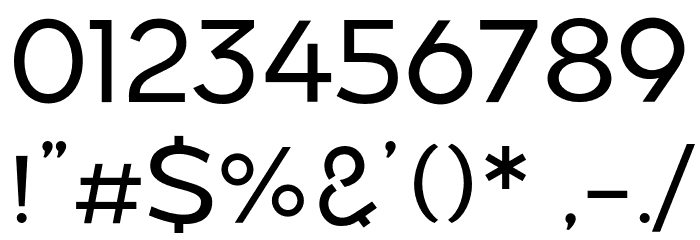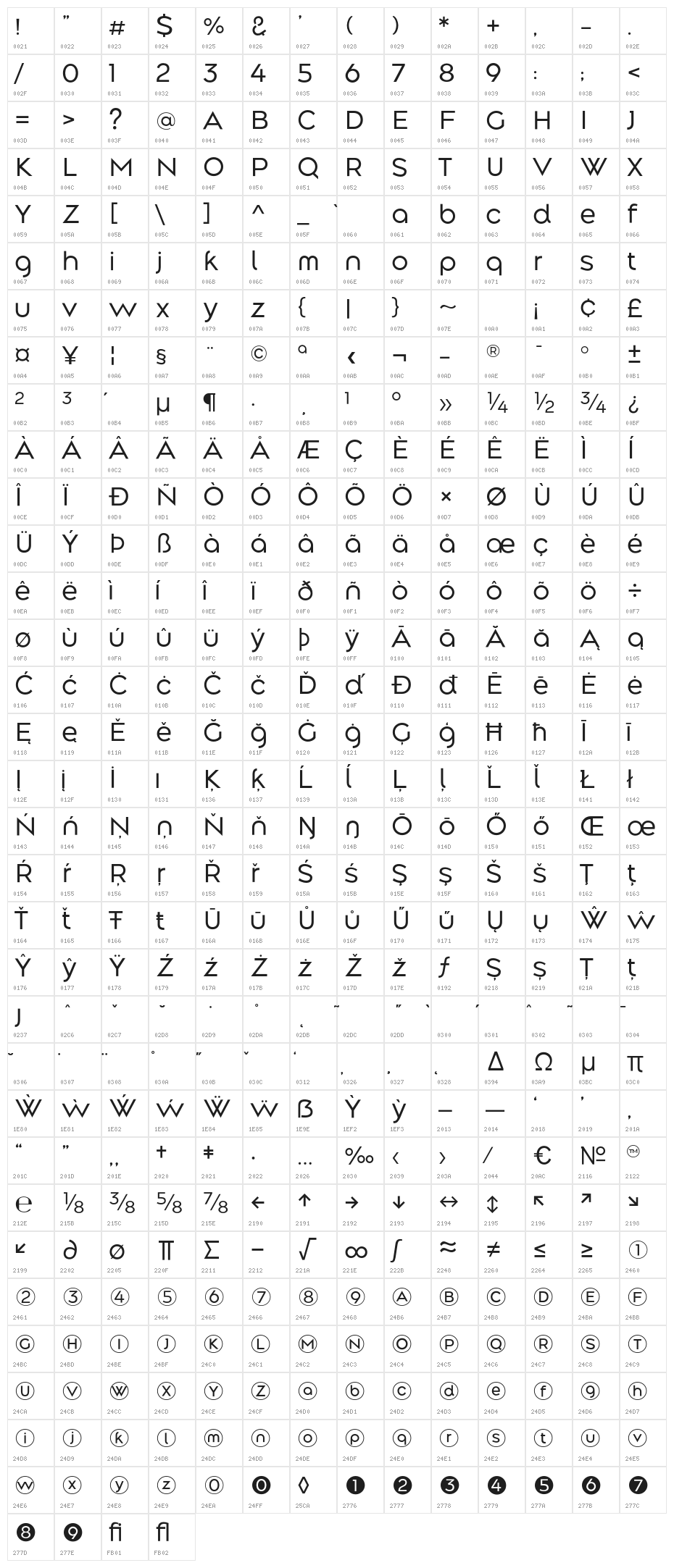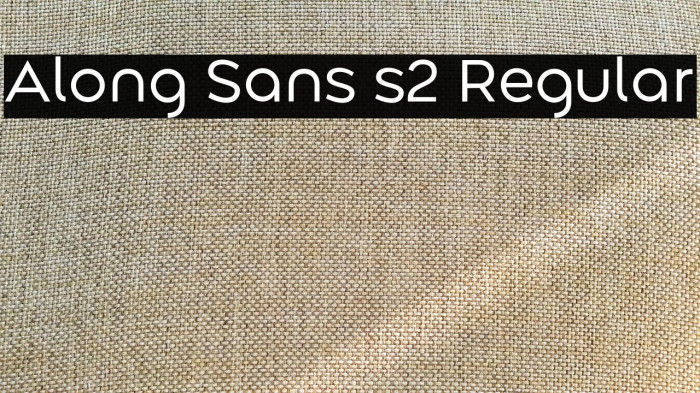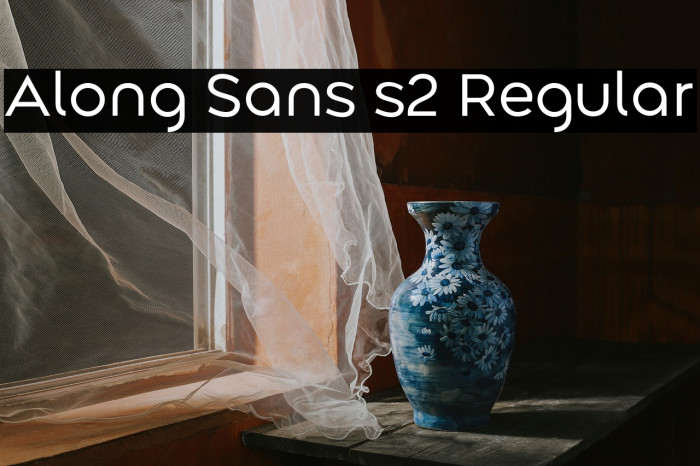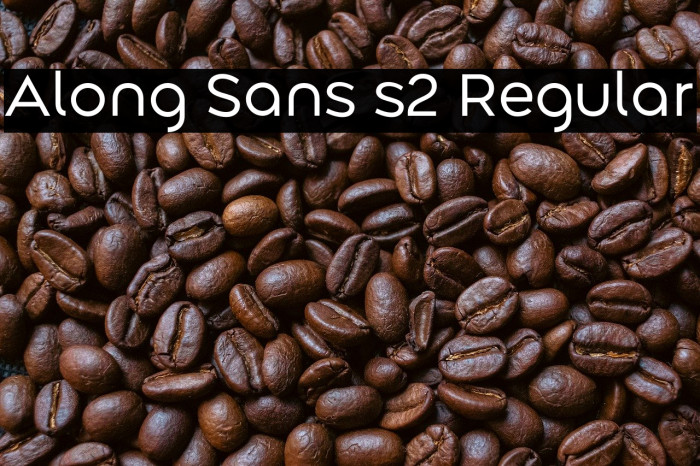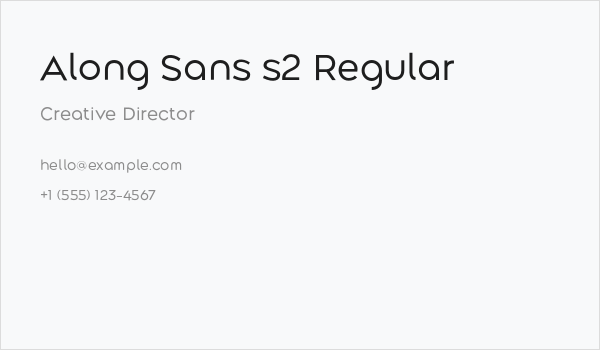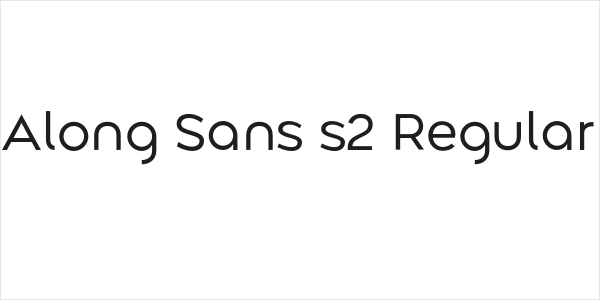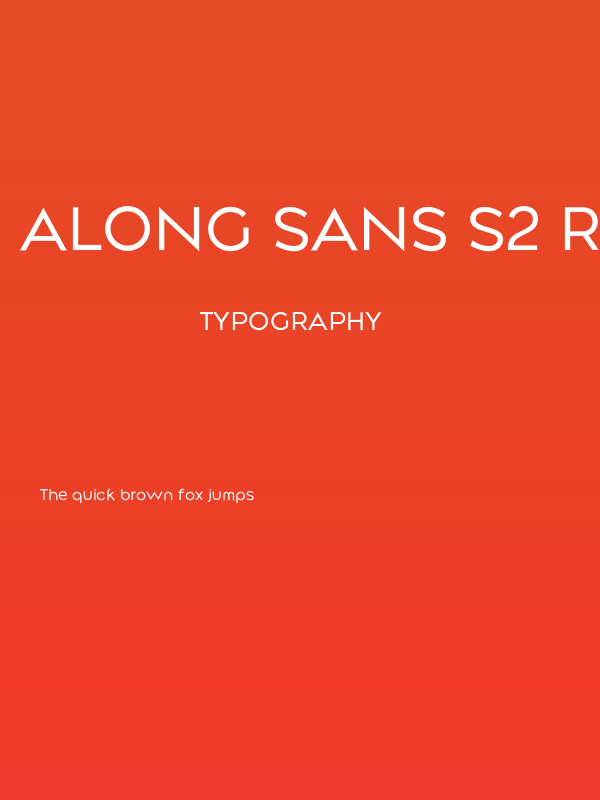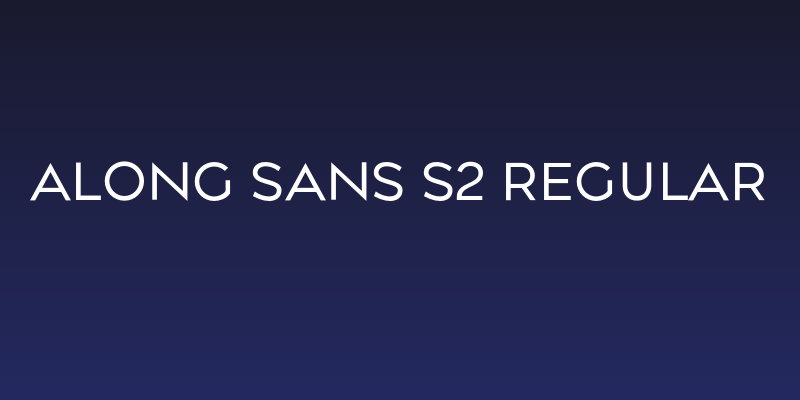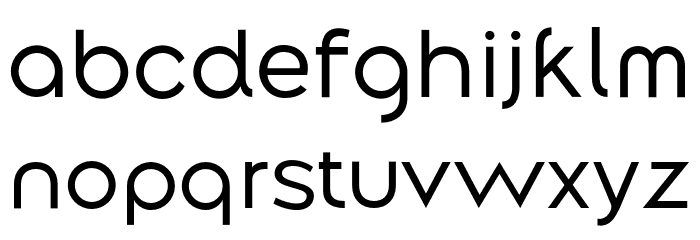
Along Sans s2 Regular Font
Along Sans s2 Regular Description
This font features a clean and modern sans-serif design, characterized by its geometric shapes and uniform stroke width. The uppercase letters are bold and assertive, while the lowercase letters maintain a friendly and approachable appearance. The numerals are clear and legible, making them suitable for various applications. The special characters are well-integrated, maintaining the overall aesthetic of the font. Its simplicity and clarity make it versatile for both digital and print media.
| Proposed Projects | Ideal for branding, web design, advertising, and editorial layouts due to its clean and modern appearance. |